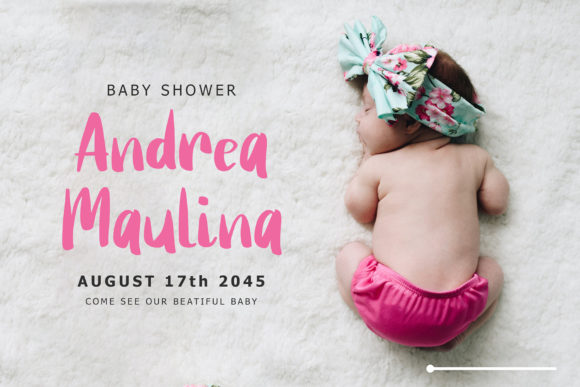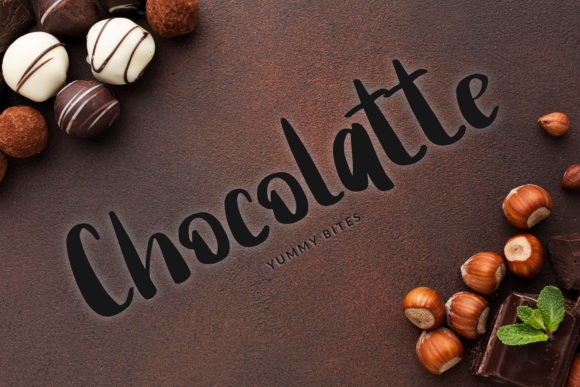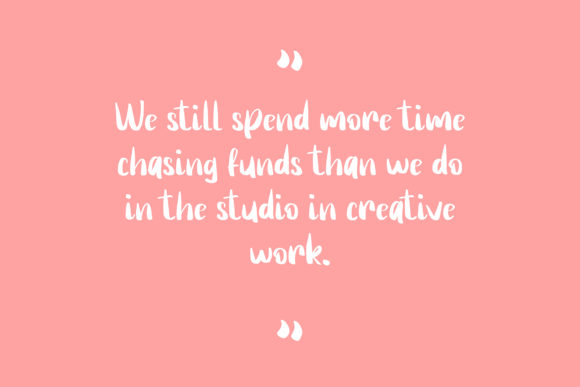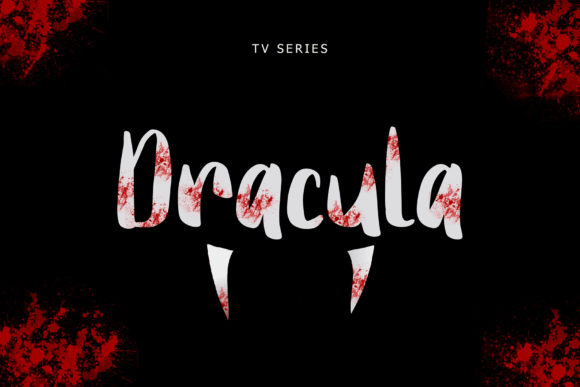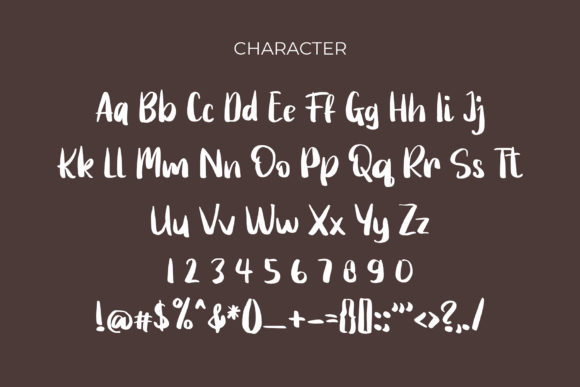
Cubite Font: Elevate Your Designs with Elegance and Sophistication
In the world of typography, a well-crafted font can make all the difference in elevating your designs to new heights. Introducing Cubite, a stunning handwritten font that seamlessly blends classic calligraphic influences with a modern twist. With its exquisite design and versatility, Cubite is poised to become your new favorite font.
The Art of Cubite: A Masterful Design
Cubite is more than just a font – it’s a work of art. Designed with precision and passion, this handwritten font boasts a unique charm that sets it apart from the rest. Its classy calligraphic roots are evident in its elegant strokes and refined letterforms, while its contemporary feel ensures it remains fresh and relevant.
What Makes Cubite Special?
- Exquisite Design: Cubite’s design is truly exceptional, making it perfect for projects that demand a touch of sophistication.
- Versatility: This font is incredibly versatile, suitable for a wide range of projects, from wedding invitations and branding materials to packaging and digital media.
- Easy to Read: Despite its elegant nature, Cubite remains highly legible, ensuring your message is conveyed with clarity and precision.
- Highly Customizable: With Cubite, you have the flexibility to adjust the font to suit your project’s specific needs, making it an excellent choice for designers.
Applications of Cubite: Where to Use This Stunning Font
Cubite’s versatility makes it an excellent choice for various design projects. Here are some ideal applications for this beautiful font:
- Wedding and Event Stationery: Add a touch of elegance to your wedding invitations, save-the-dates, and other event materials with Cubite.
- Branding and Packaging: Elevate your brand’s visual identity with Cubite, perfect for logos, labels, and packaging designs.
- Digital Media: Use Cubite in your digital projects, such as website headers, social media graphics, and email newsletters, to add a sophisticated touch.
- Stationery and Print Materials: Cubite is ideal for business cards, letterheads, brochures, and other print materials where a professional yet elegant look is desired.
Tips for Using Cubite Effectively
To get the most out of Cubite, consider the following tips:
- Pair with Complementary Fonts: Combine Cubite with clean, sans-serif fonts to create a harmonious contrast and enhance readability.
- Adjust Font Sizes: Experiment with different font sizes to create visual hierarchy and emphasize key elements in your design.
- Play with Colors: Take advantage of Cubite’s versatility by using it in various colors to match your brand’s palette or project theme.
Why Designers and Crafters Love Cubite
Cubite has quickly become a favorite among designers and crafters due to its unique blend of elegance and modernity. Here are some reasons why:
- Time-Saving: With Cubite, you can achieve professional-looking results without spending hours on custom lettering.
- Consistency: This font ensures consistency across your designs, making your brand or project look cohesive and polished.
- Inspiration: Cubite’s beautiful design will inspire you to create stunning projects that stand out from the crowd.
Cubite is an exceptional handwritten font that offers the perfect blend of classy calligraphic influences and contemporary freshness. Its exquisite design, versatility, and ease of use make it an excellent choice for designers and crafters looking to elevate their projects. Whether you’re working on wedding stationery, branding materials, or digital media, Cubite is sure to become your go-to font for achieving sophisticated and elegant results. So, fall in love with Cubite and bring your projects to the highest levels!